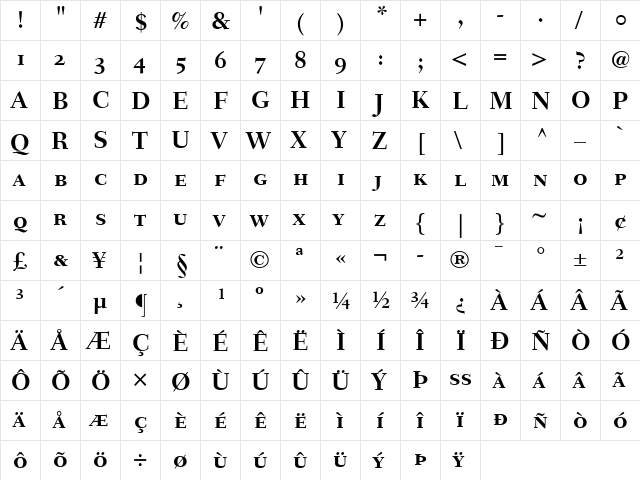
Fairfield LH MediumSC Bold Font Preview
Fairfield LH MediumSC Bold
Fairfield LH MediumSC Bold Font Details
Design Context for Fairfield LH MediumSC Typeface
Fairfield LH MediumSC is a composed and adaptable typeface that performs quietly and consistently across a wide range of design contexts. The heavy weight commands attention and anchors typographic hierarchies.